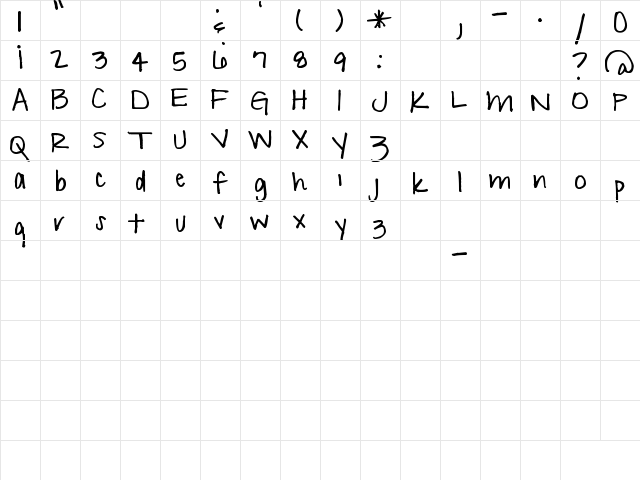
Pea Elizabeth Regular
Design Context for Pea Elizabeth Typeface
Pea Elizabeth takes a measured approach to typography — its balanced proportions and neutral character make it a reliable workhorse for both digital and print work.